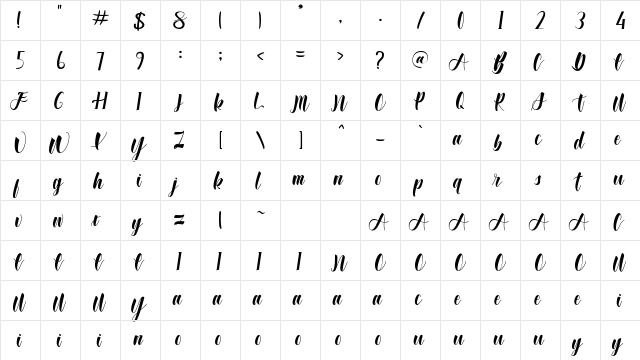
Wonderfull Bali Regular
| Foundry | Markonah Creative |
| Designer | Herman |
Design Context for Wonderfull Bali Typeface
Wonderfull Bali is a composed and adaptable typeface that performs quietly and consistently across a wide range of design contexts.